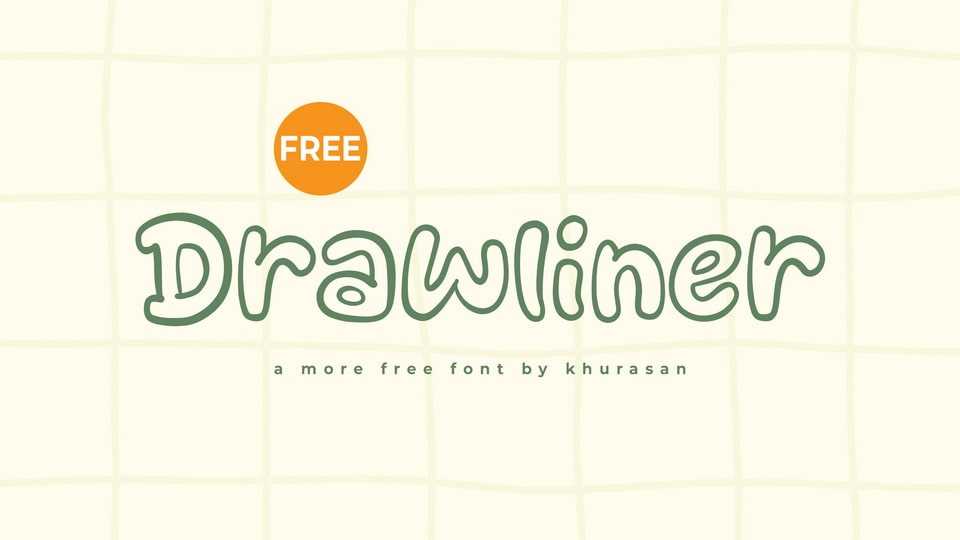
Download Drawliner font, a playful and hand-drawn outline typeface that brings a whimsical, doodle-like charm to any design with its rounded, cartoonish letterforms.